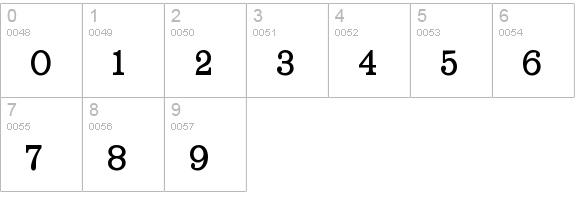
RoundslabSerif Font Details
RoundslabSerif is a modern and versatile font that combines the classic elegance of serif typefaces with a contemporary rounded design. Its clean lines and rounded edges give it a friendly and approachable feel, making it perfect for a wide range of design projects. This font is ideal for creating eye-catching headlines, elegant logos, stylish branding materials, and much more. With its unique blend of traditional and modern elements, RoundslabSerif adds a touch of sophistication and charm to any design. And the best part? RoundslabSerif is available for free download at FontsMarket.com! Whether you're a professional designer looking for a new go-to font or a hobbyist exploring different typefaces, RoundslabSerif is a versatile and stylish choice that won't cost you a penny. Download it today and elevate your design projects with this elegant and modern font.